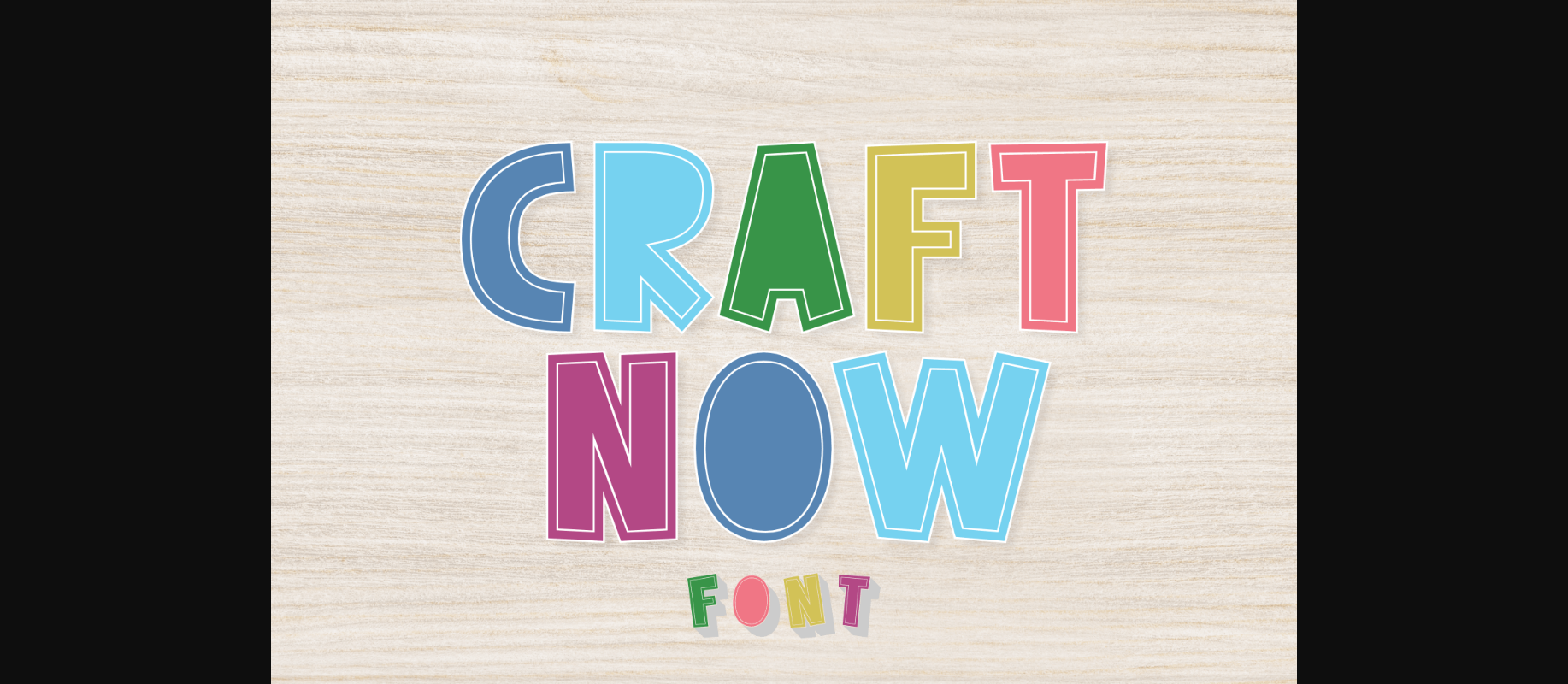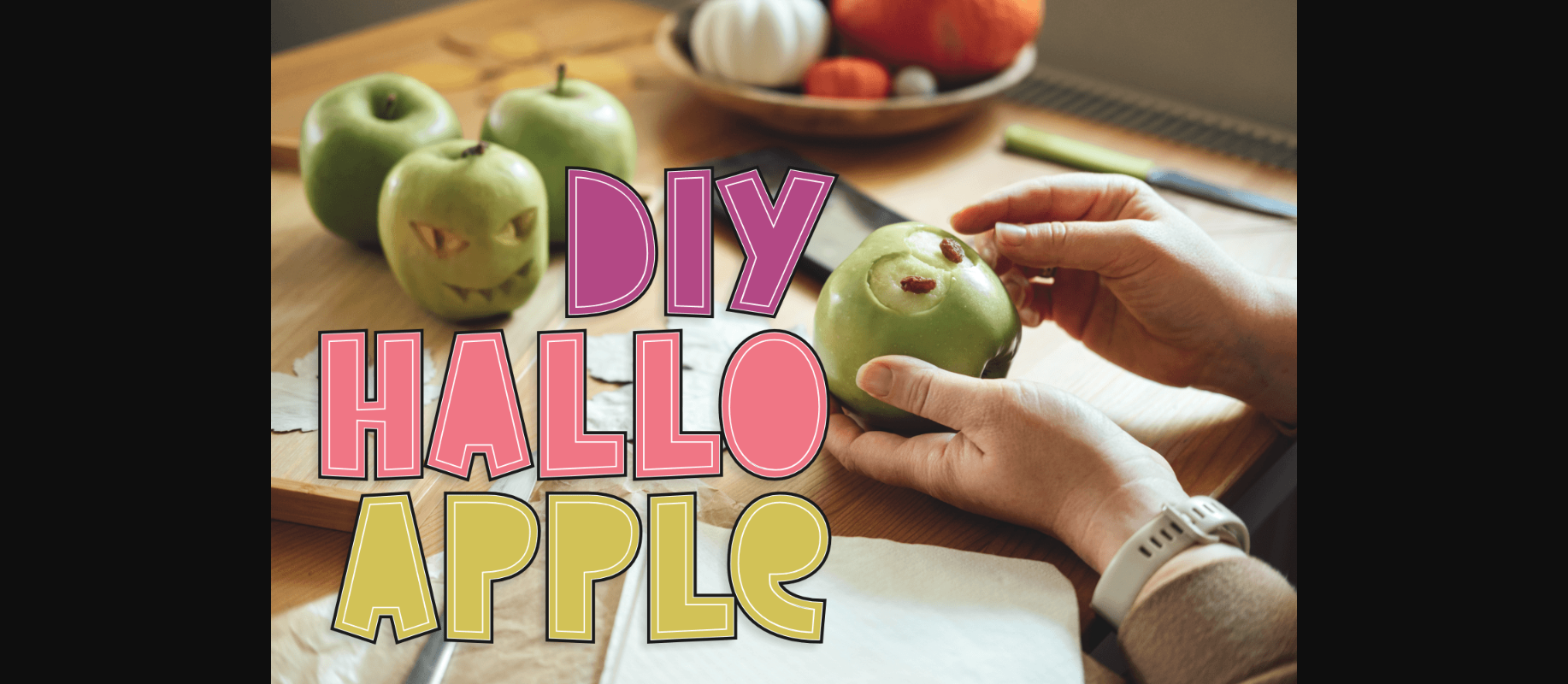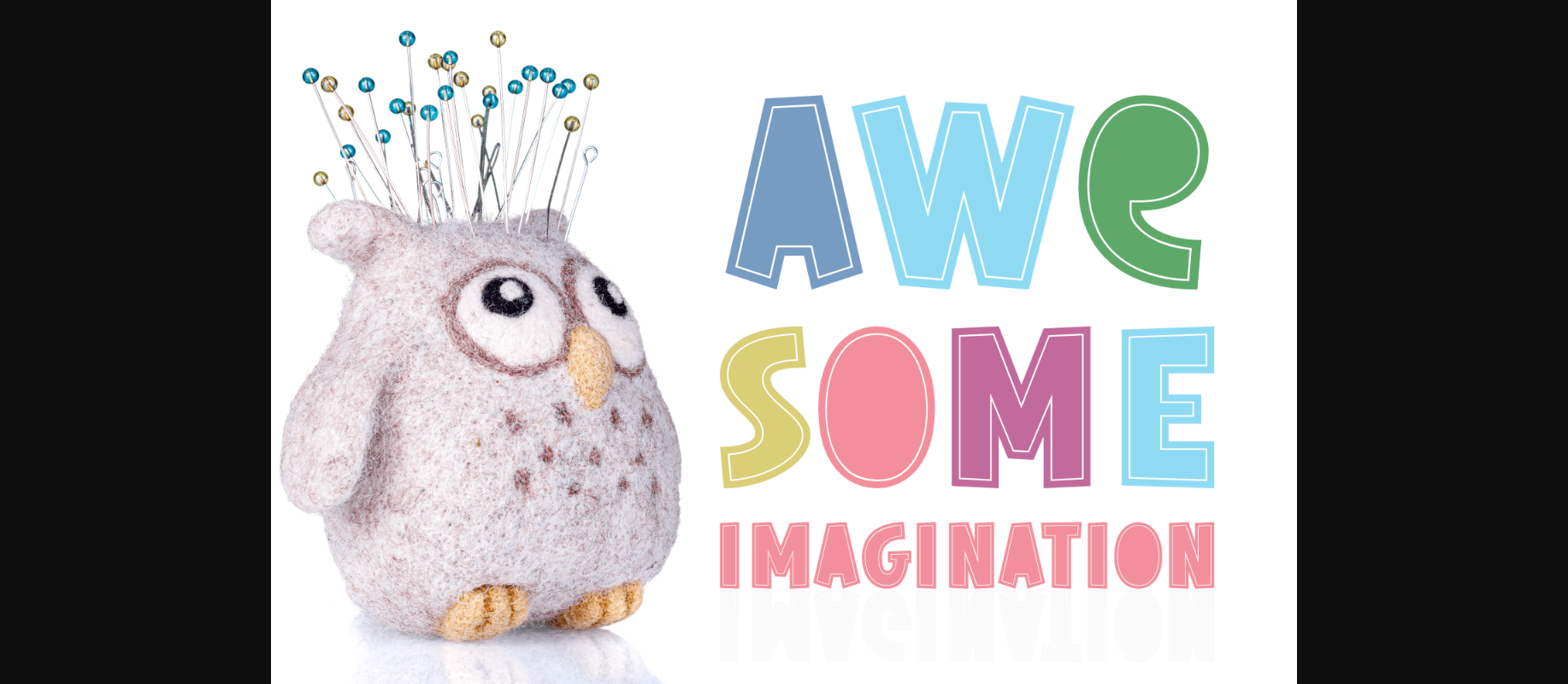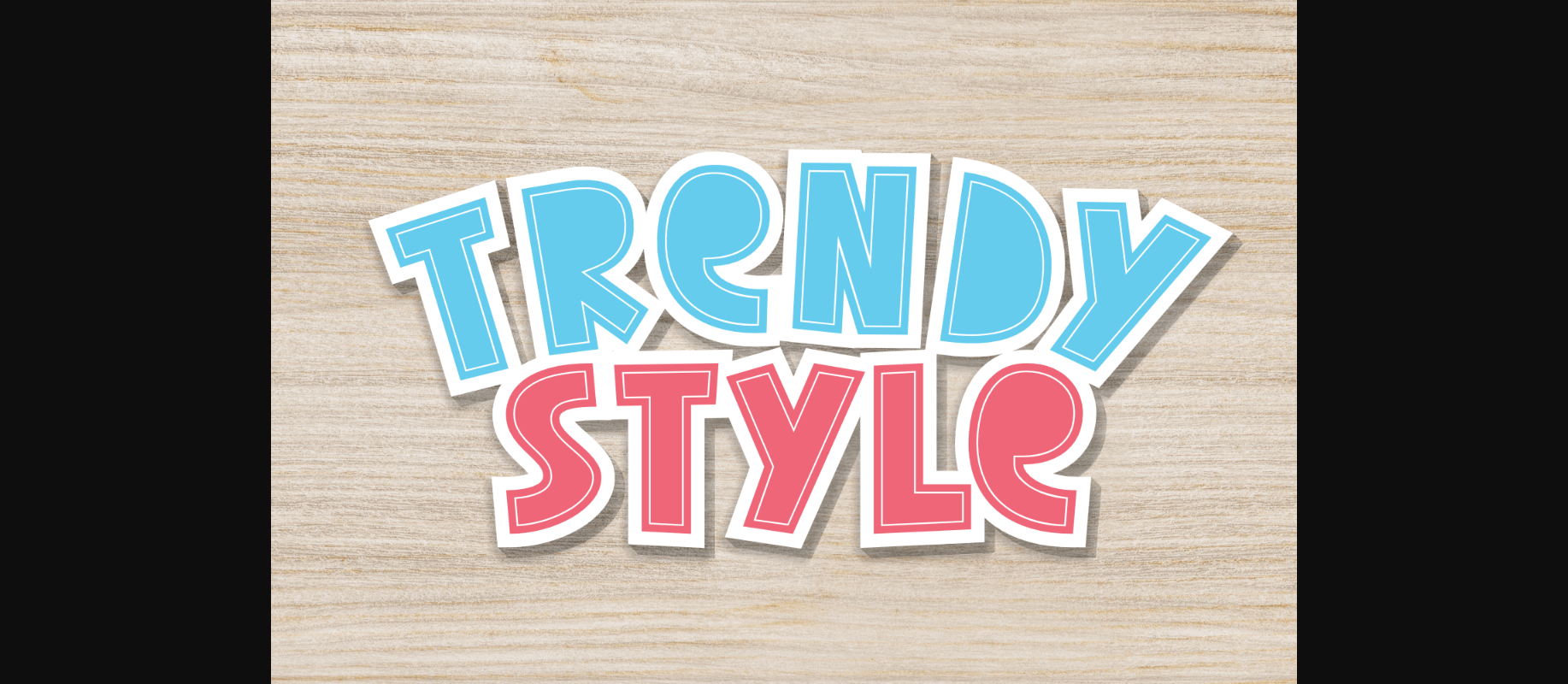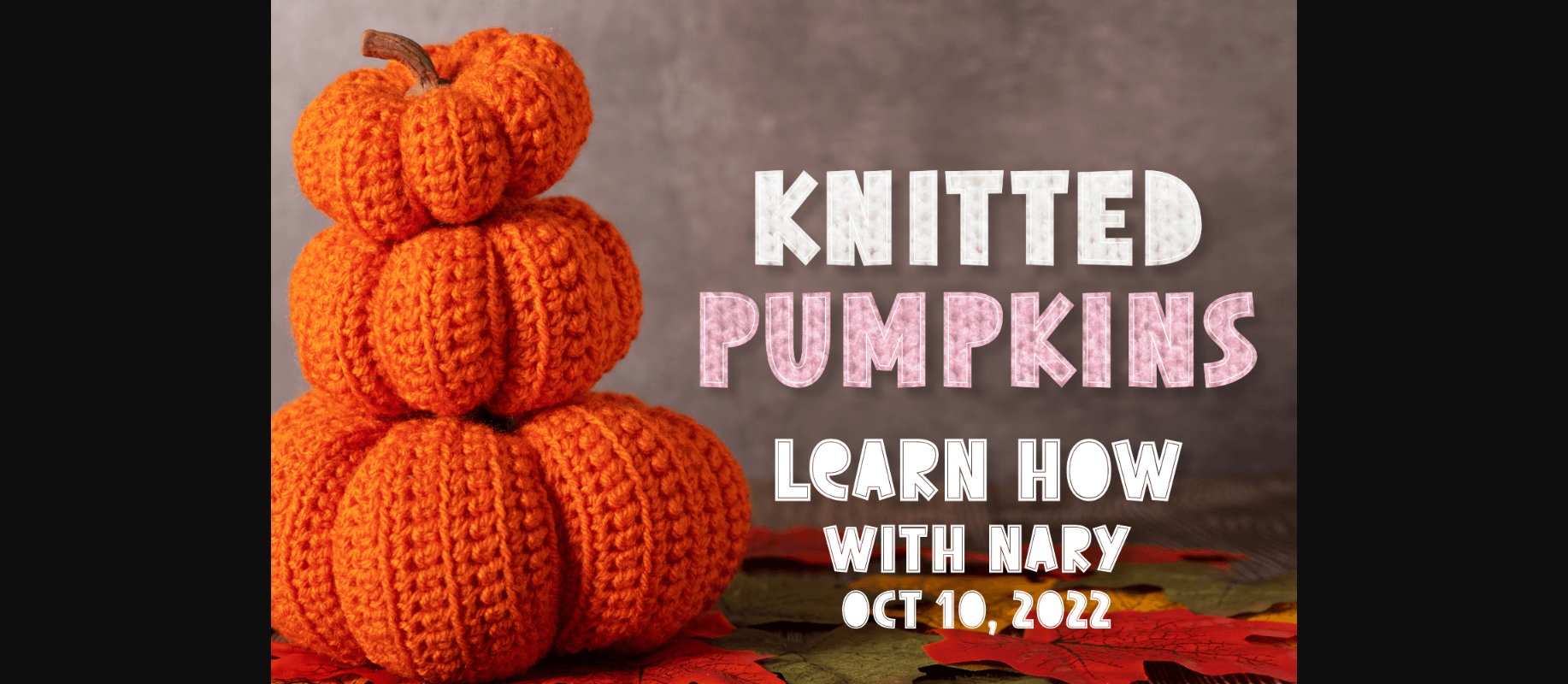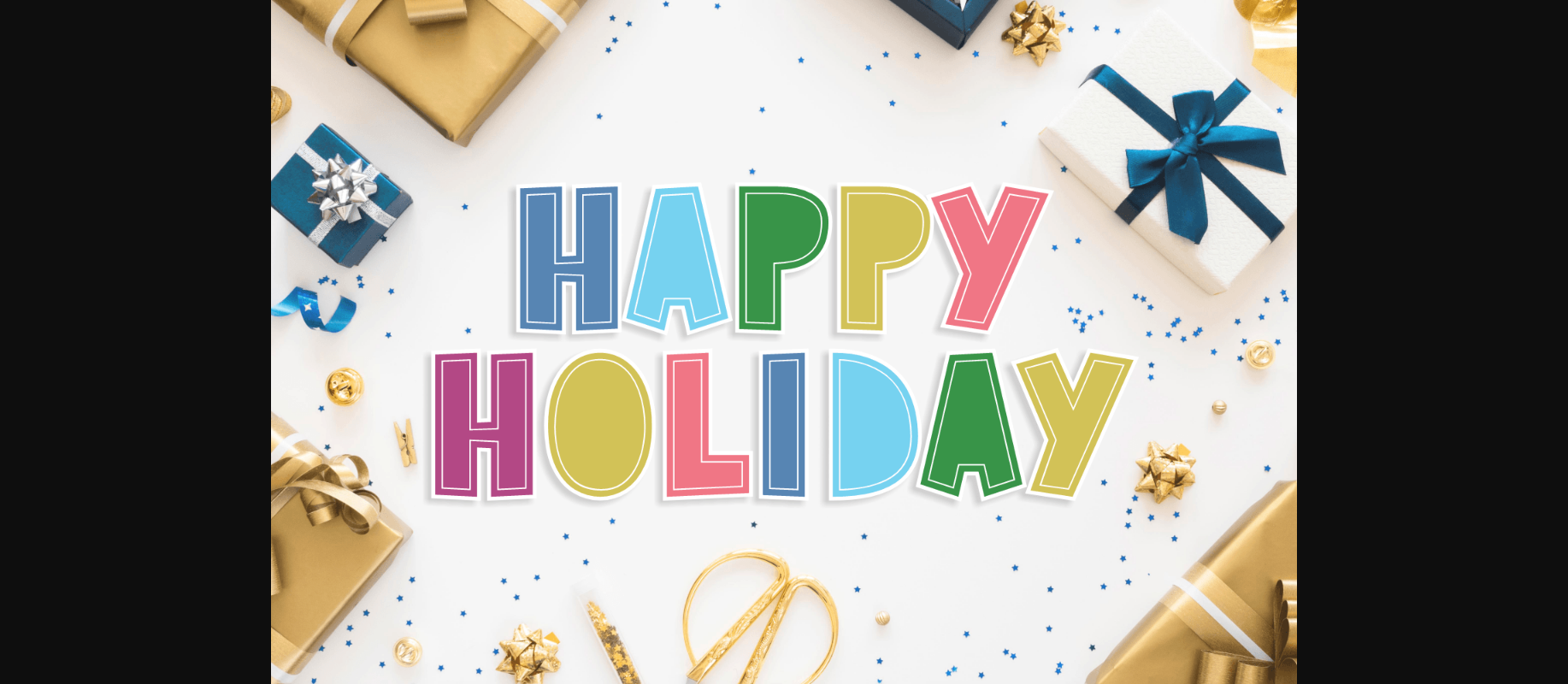
About Craft Now Font
Craft Now is a cute and playful craft-inspired font! Let your imagination run free and get inspired to use this lovely font in your next project! Use it to create eye-catching typography designs for logos, cards, fabric prints, web graphics, and more.